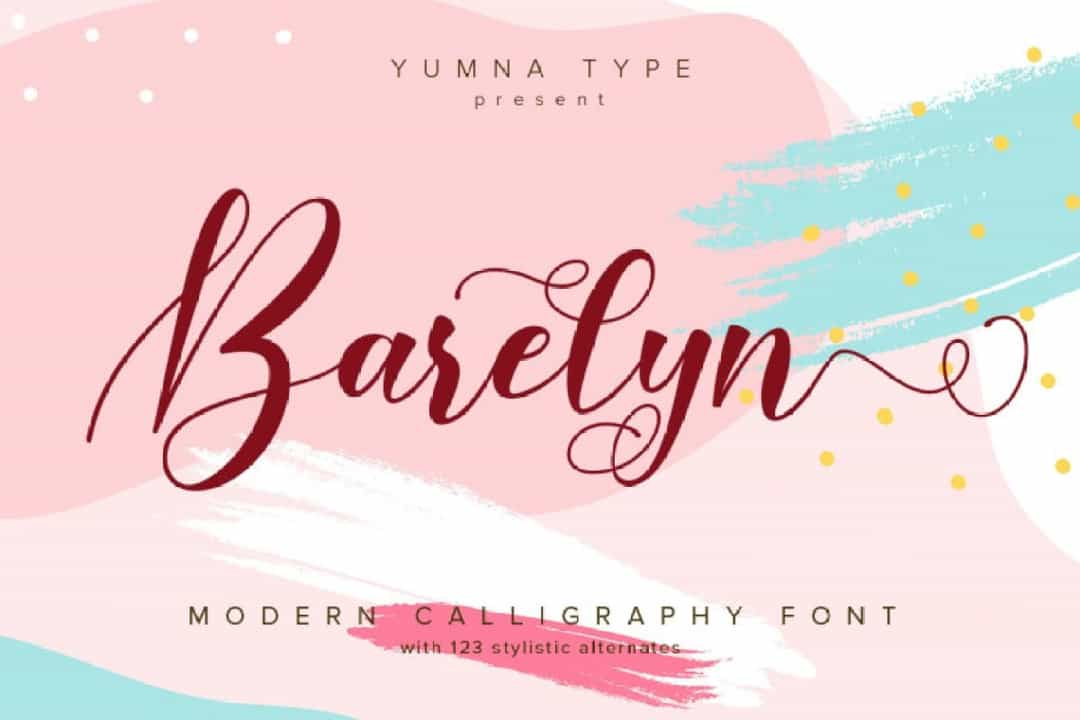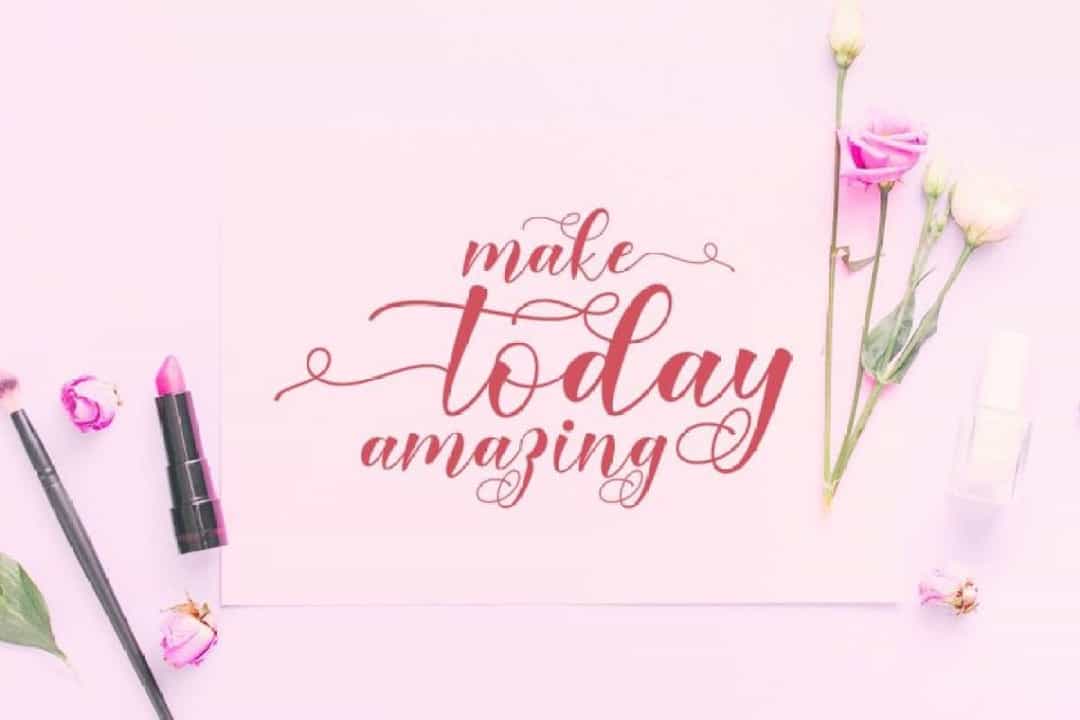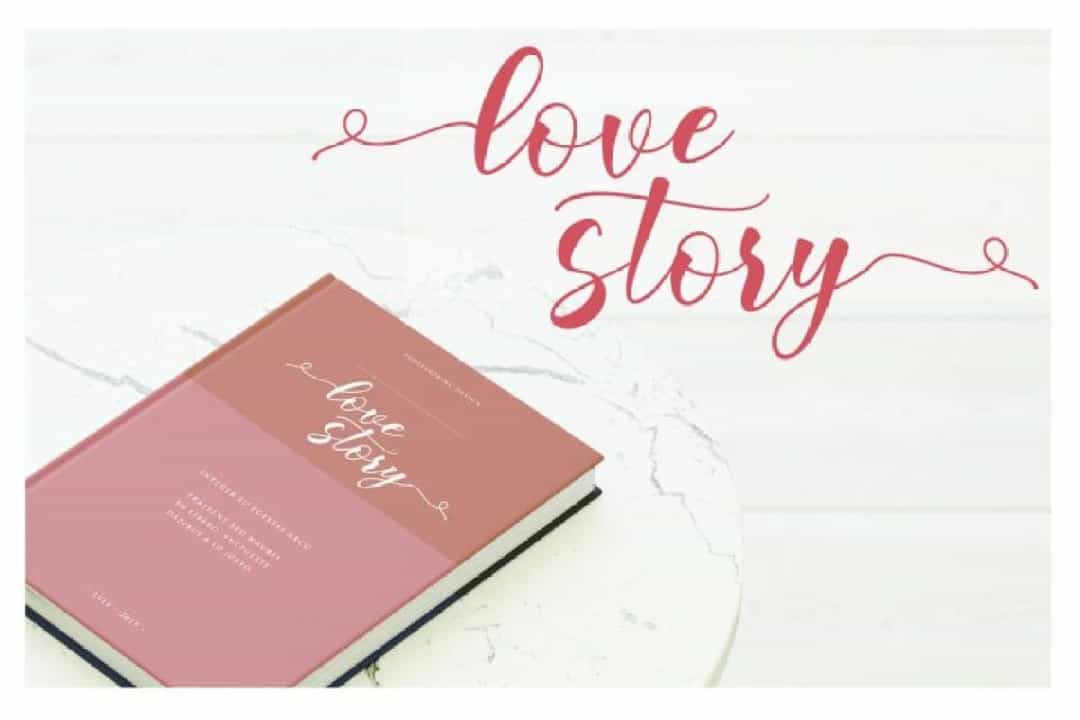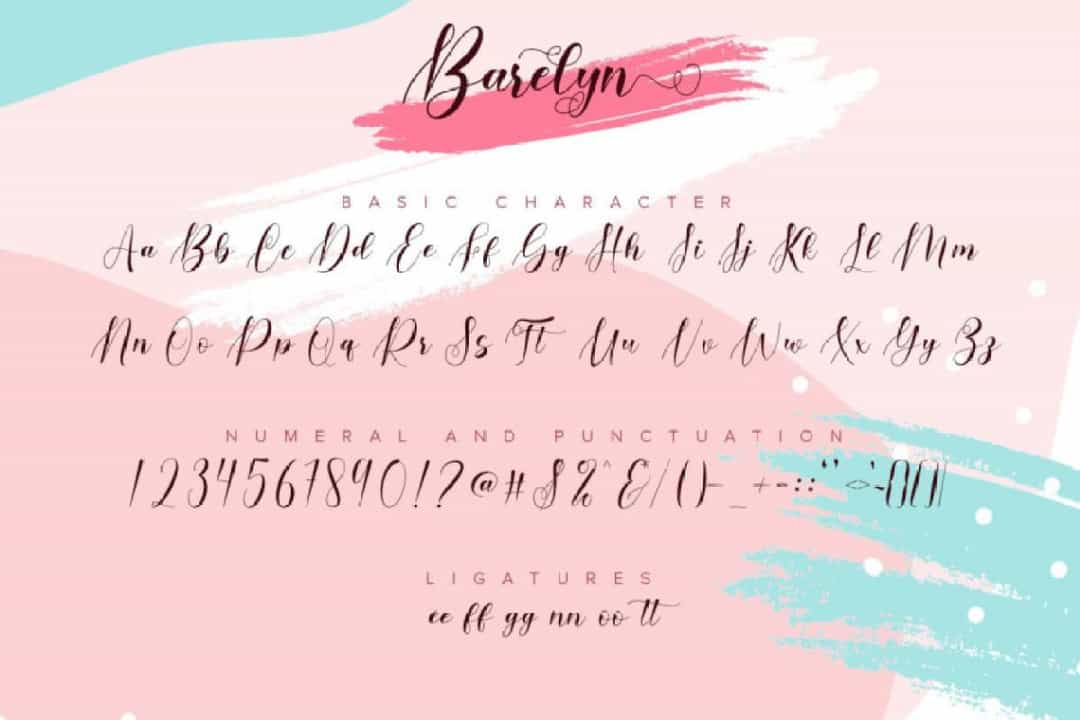
Barelyn is a beautiful handwritten font which is a calligraphy font. You will fall in love with its natural feel and will be using it to create beautiful wedding invitations, great stationary arts, beautiful social media posts and wonderful greeting cards.